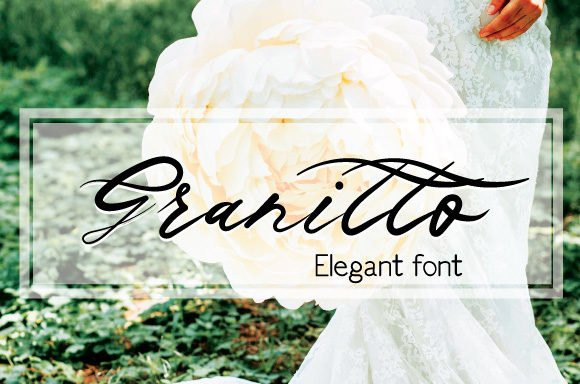
Granitto Font
Granitto is a stylish and elegant handwritten font that is suitable for various designs. This stunning font is a beautiful homage to classic calligraphy, which will elevate a wide range of design projects to the highest level.